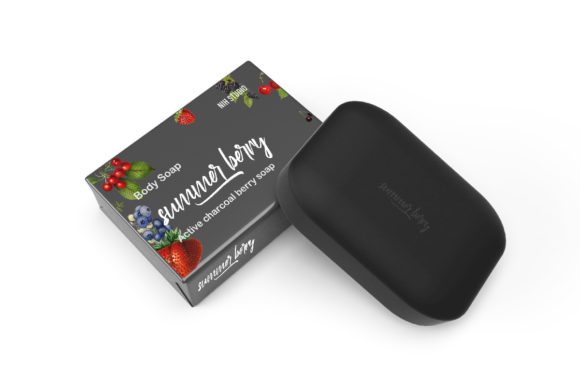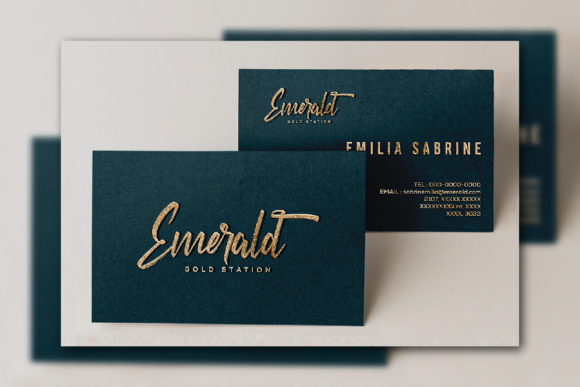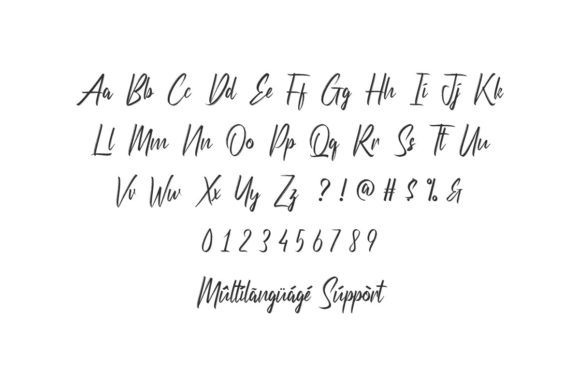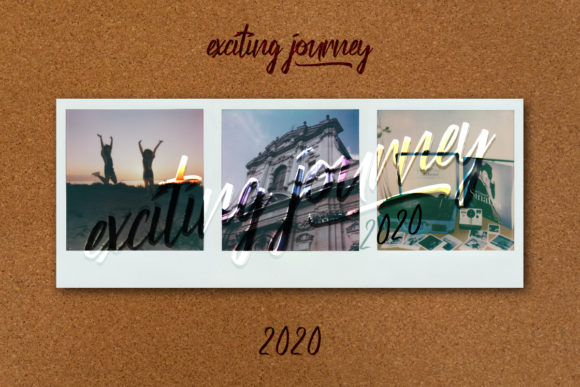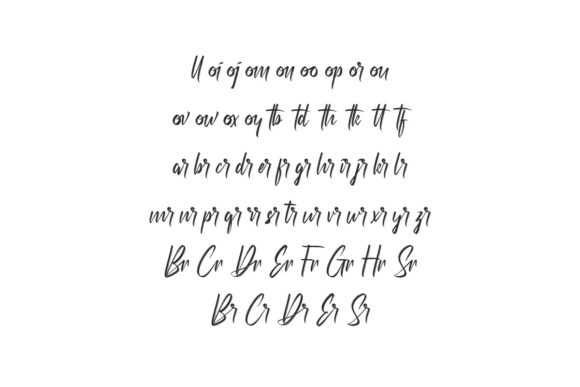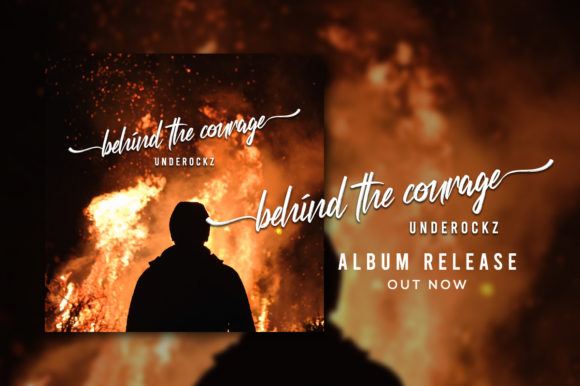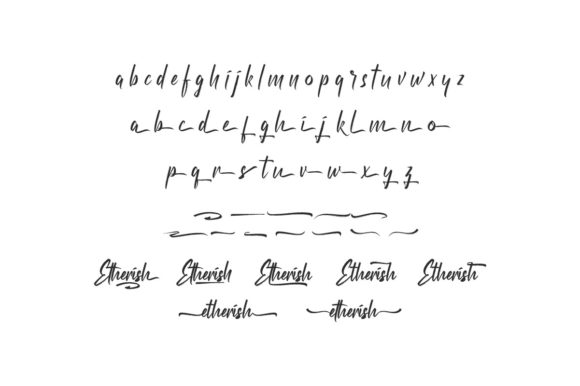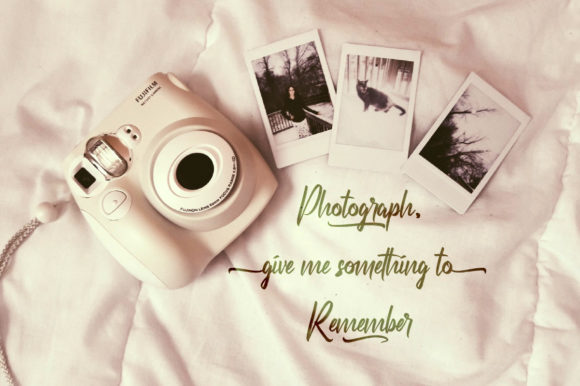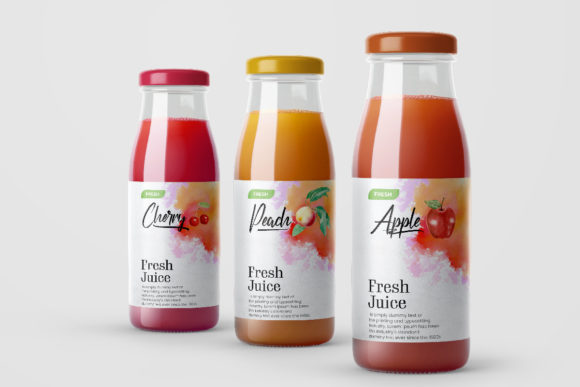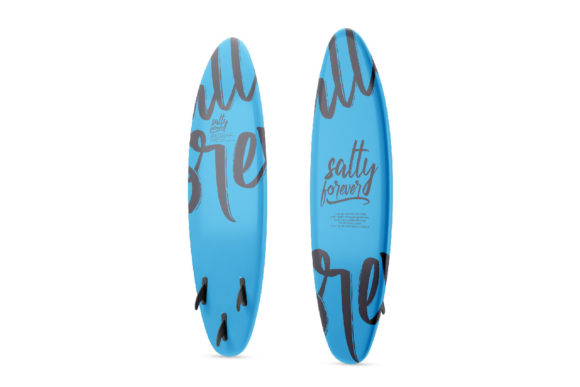
Etherish Font
About Etherish Font
Etherish is a lovely and brushed handwritten font. It is the best choice for creating eye catching logos, branding and quotes. This font is PUA encoded which means you can access all of the glyphs and swashes with ease!